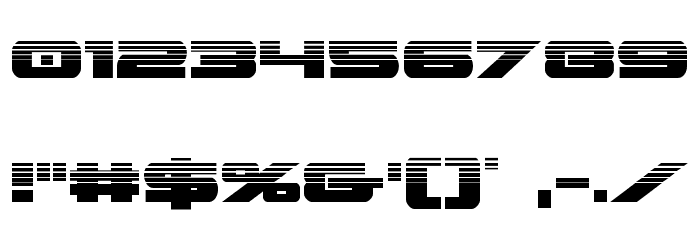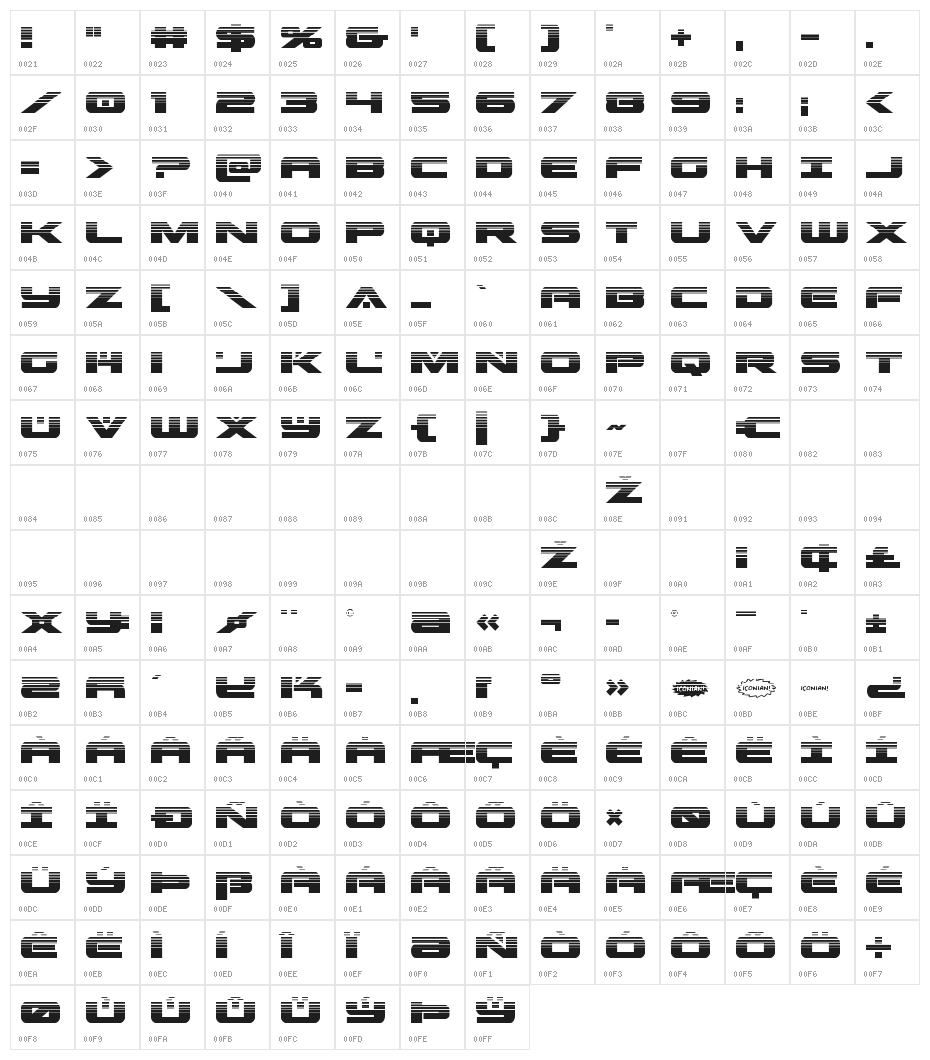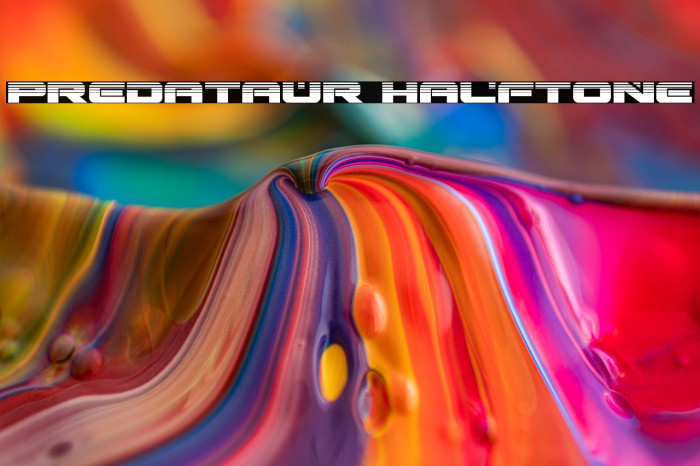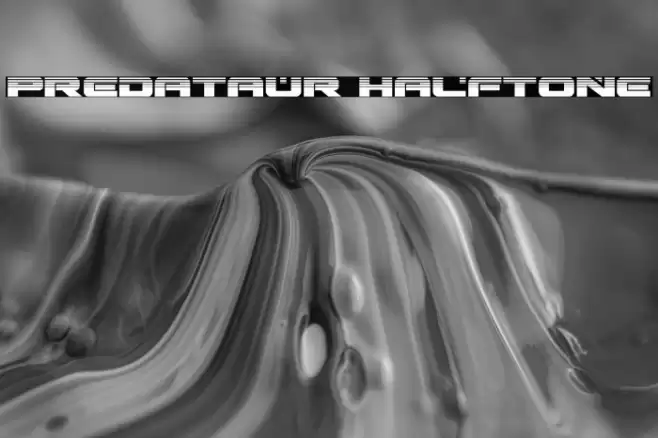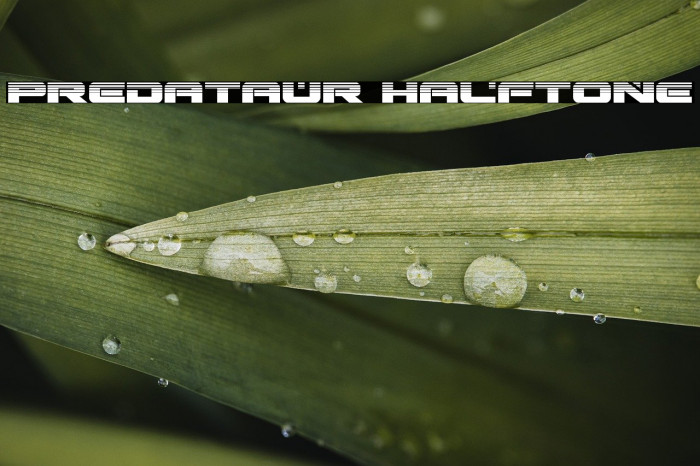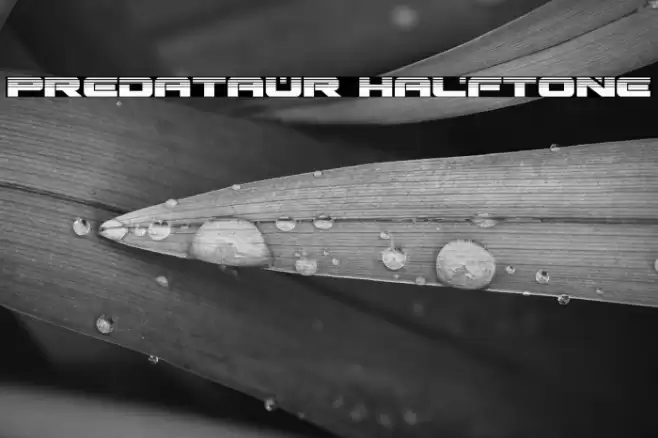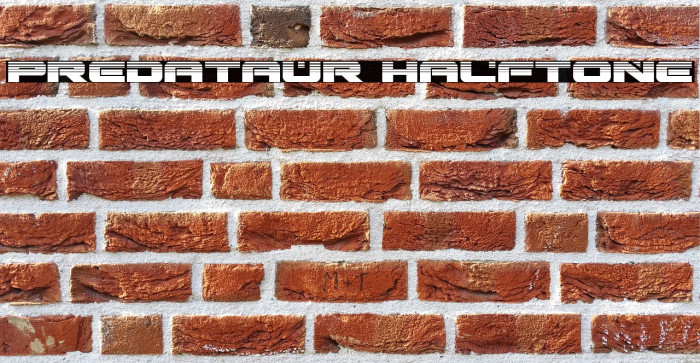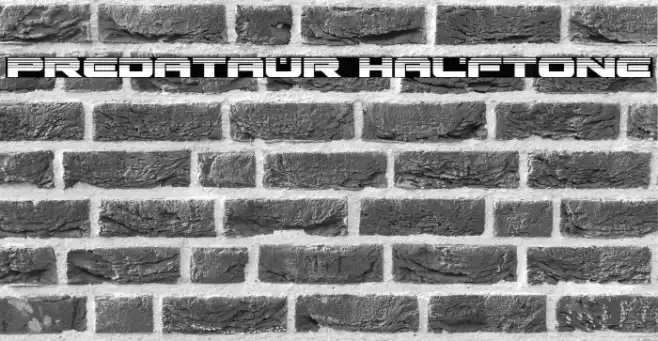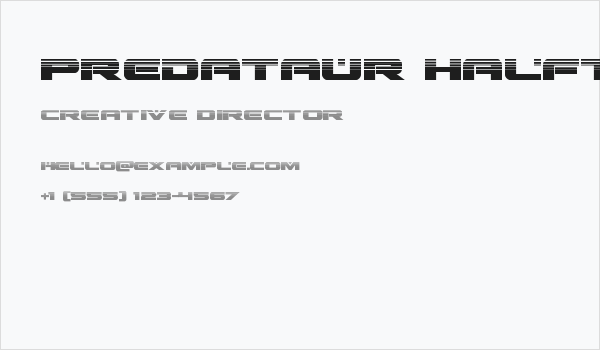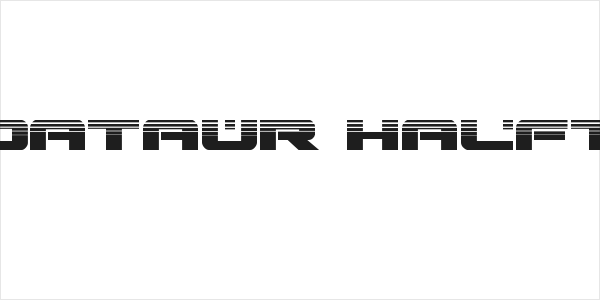
Predataur Halftone Font
Predataur Halftone Description
This font features a bold, futuristic design with a halftone effect that gives it a unique, digital appearance. The characters are constructed with horizontal lines that create a sense of movement and energy. The uppercase and lowercase letters maintain a consistent style, with sharp angles and a geometric structure. The numbers and special characters are designed to match the overall aesthetic, making the font suitable for a cohesive design project. The halftone effect adds depth and texture, making it stand out in digital and print media.
| Overall Style | Futuristic, Digital |
| Proposed Projects | Ideal for technology branding, video game titles, sci-fi posters, and digital artwork. |